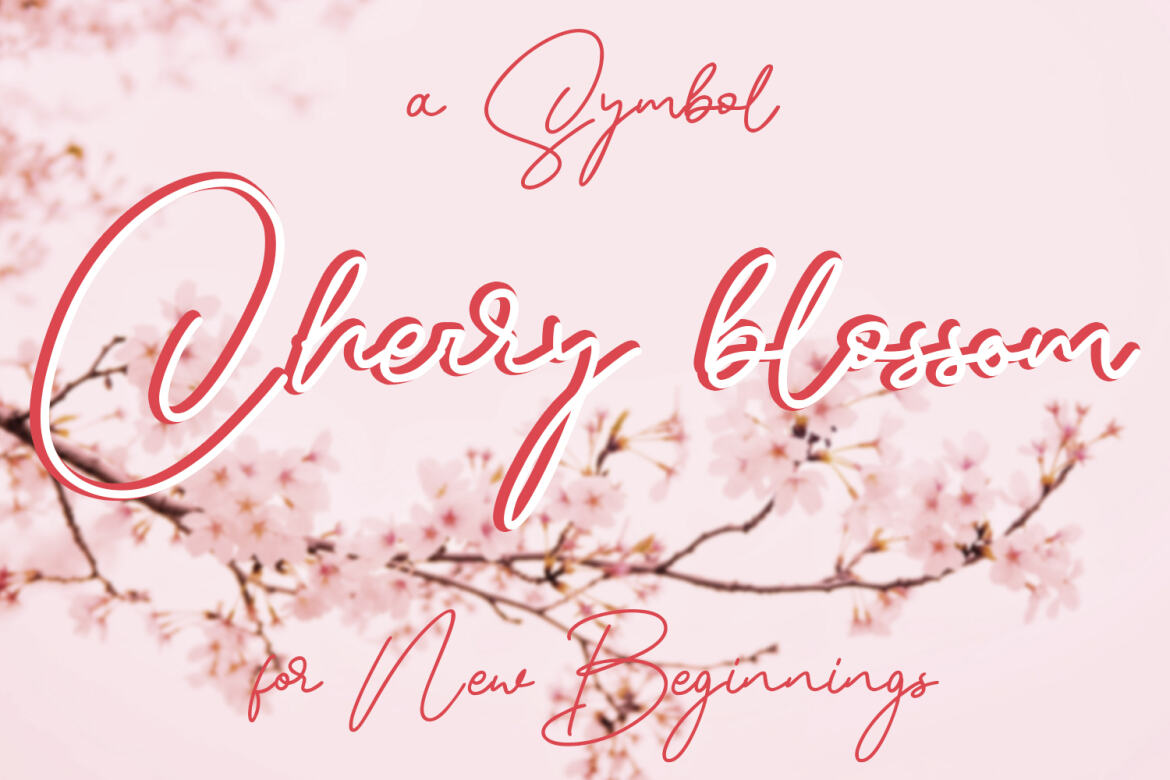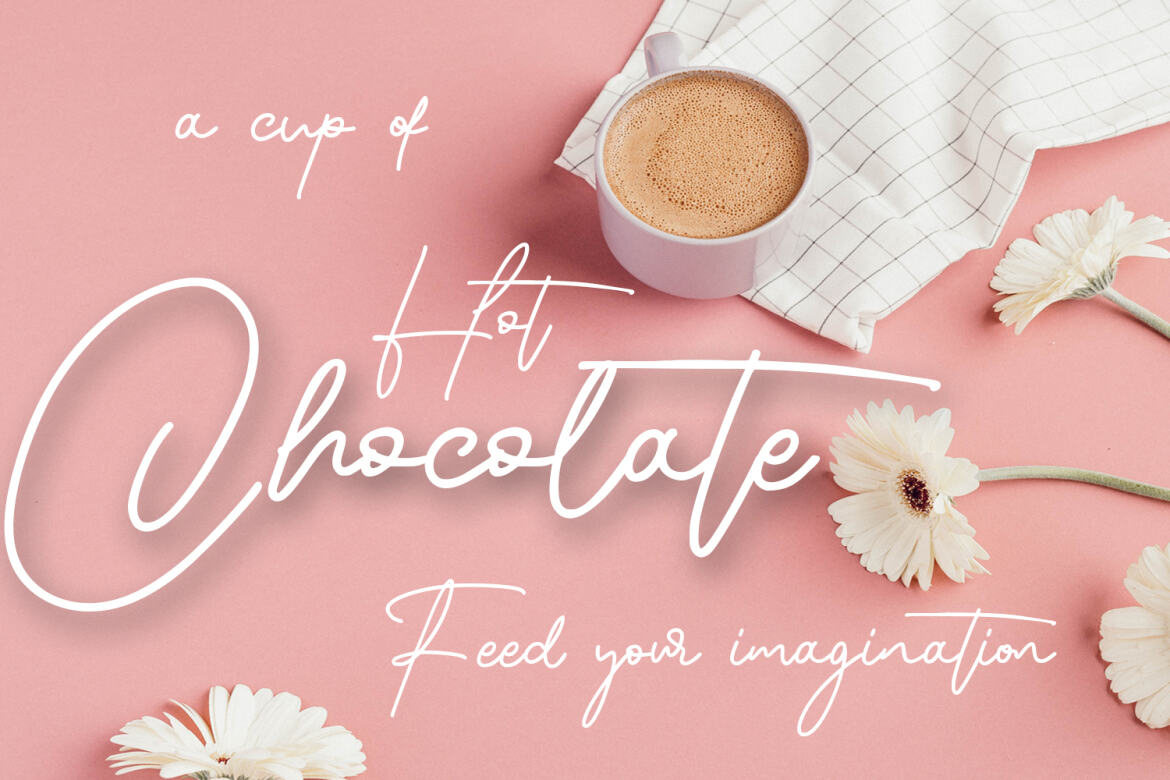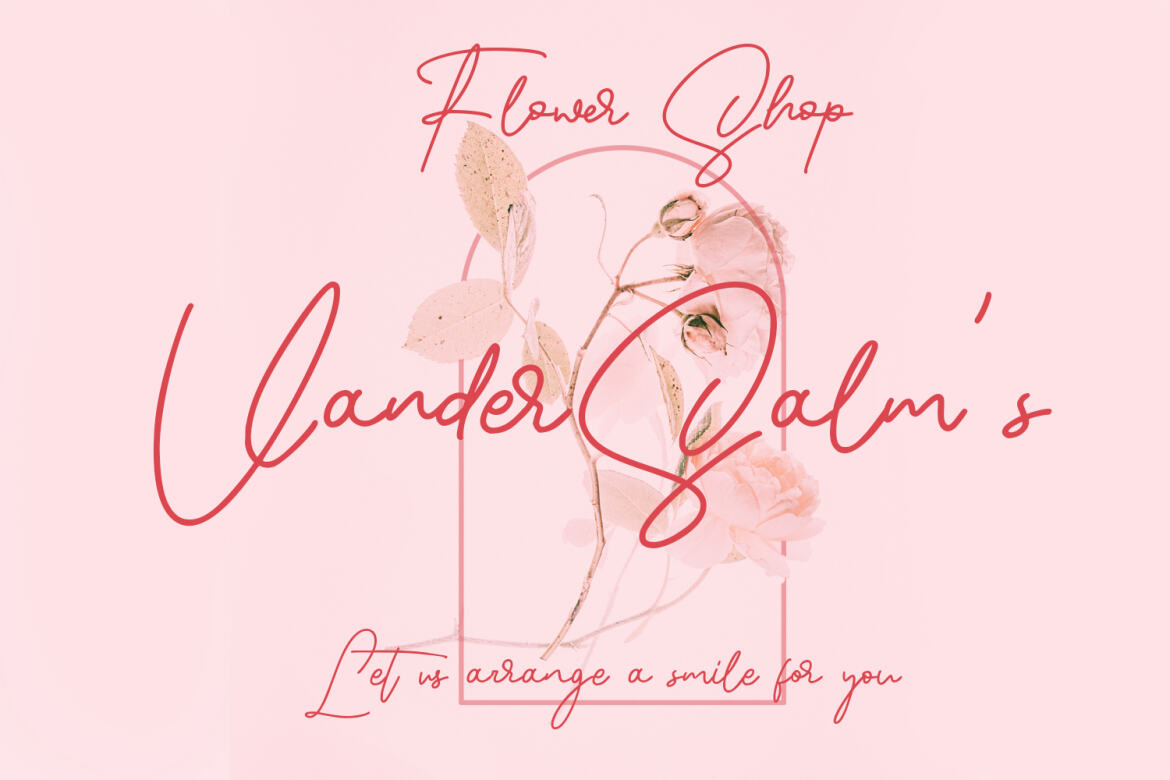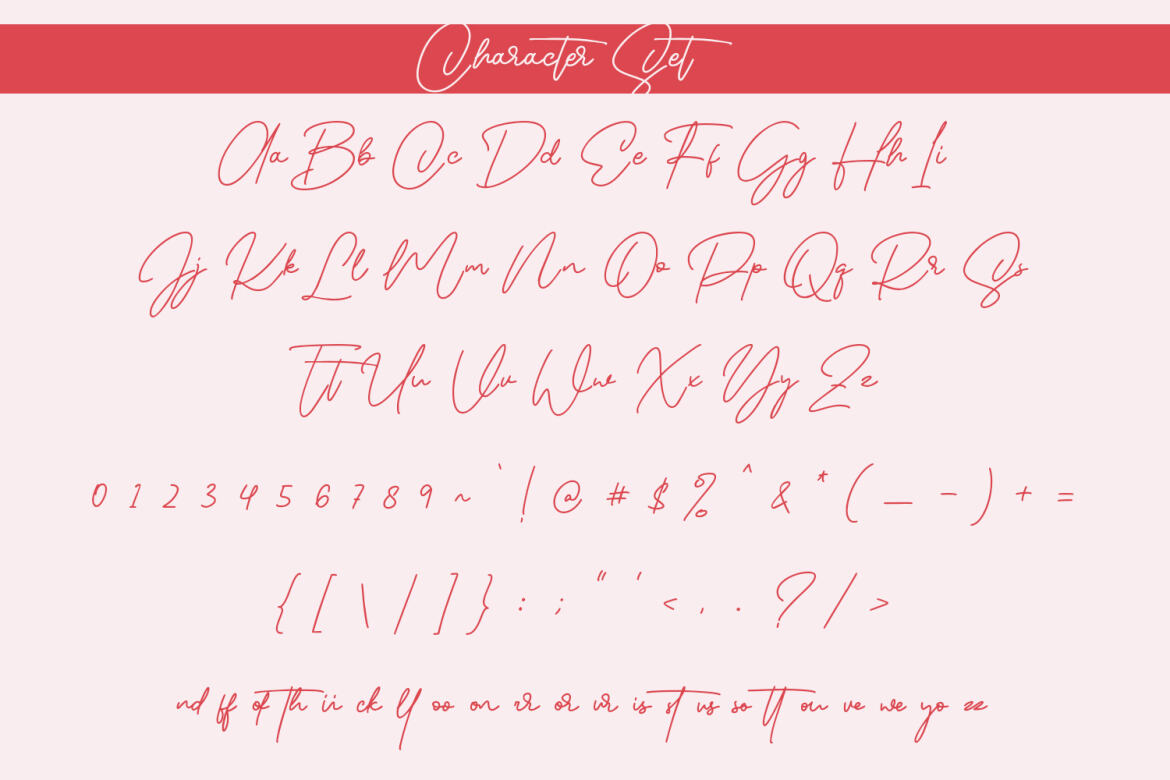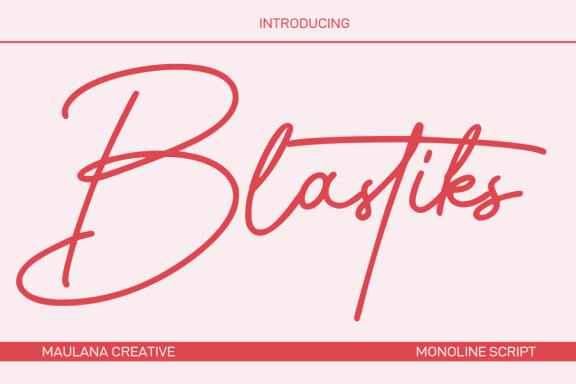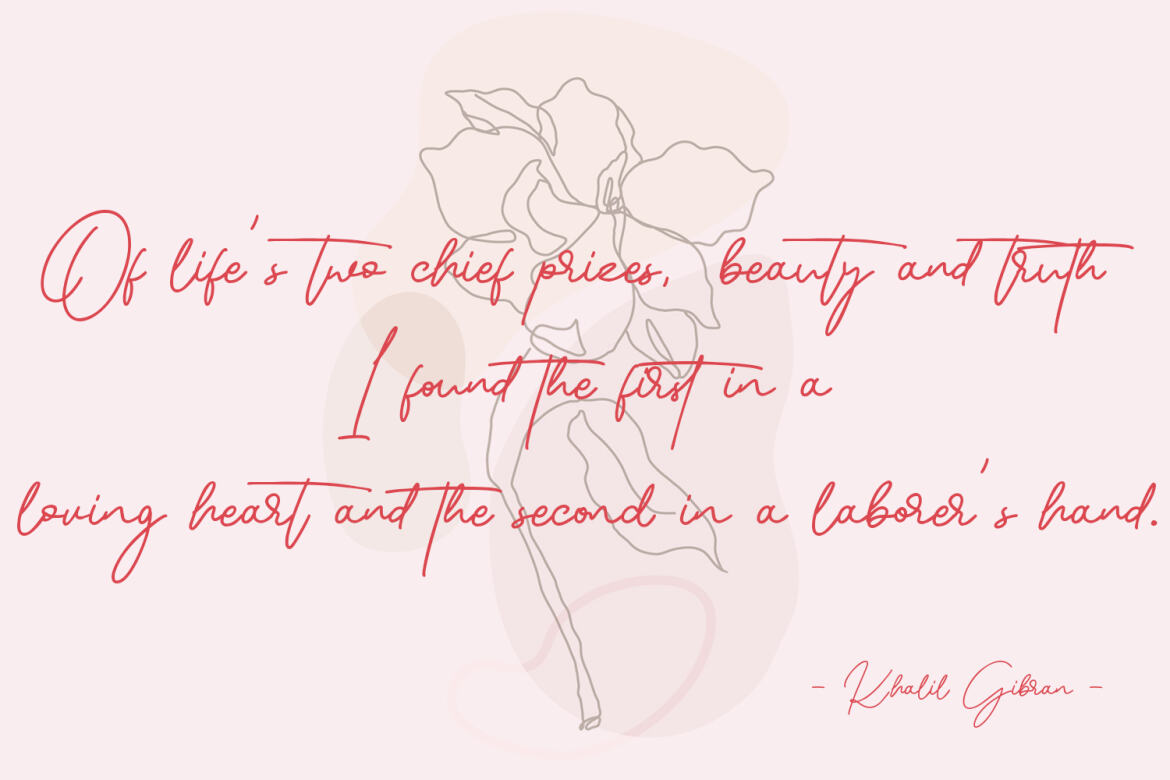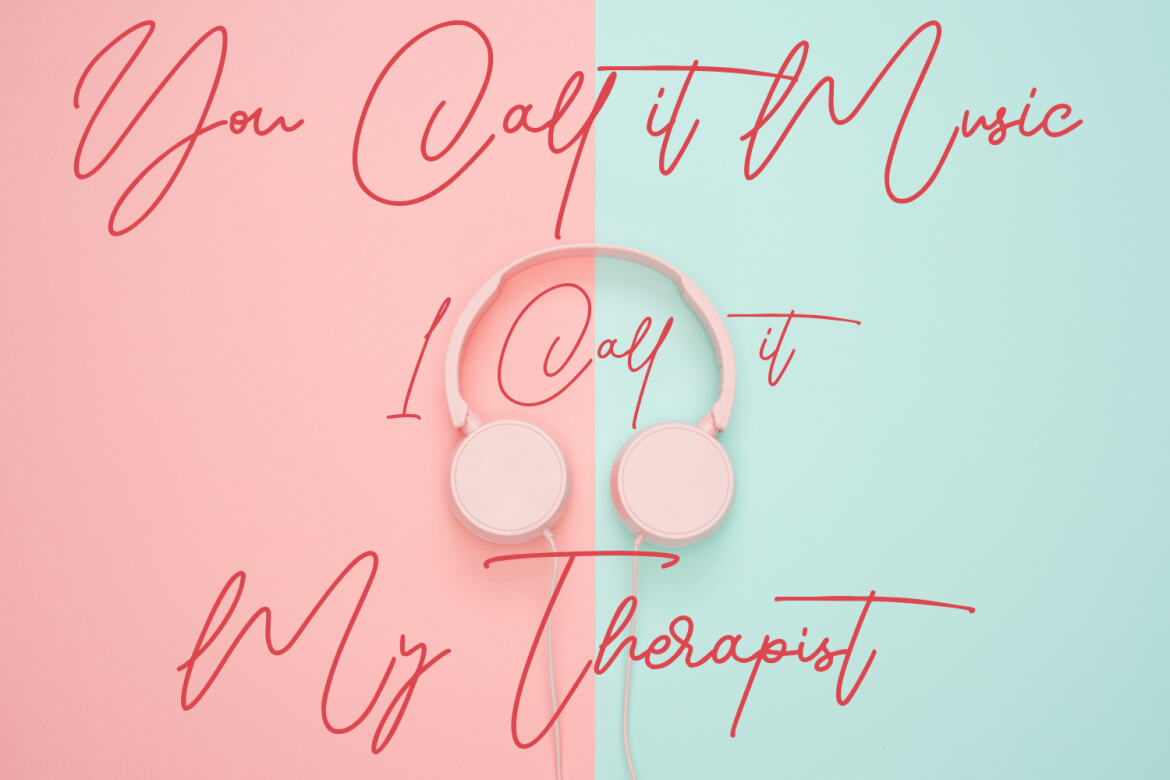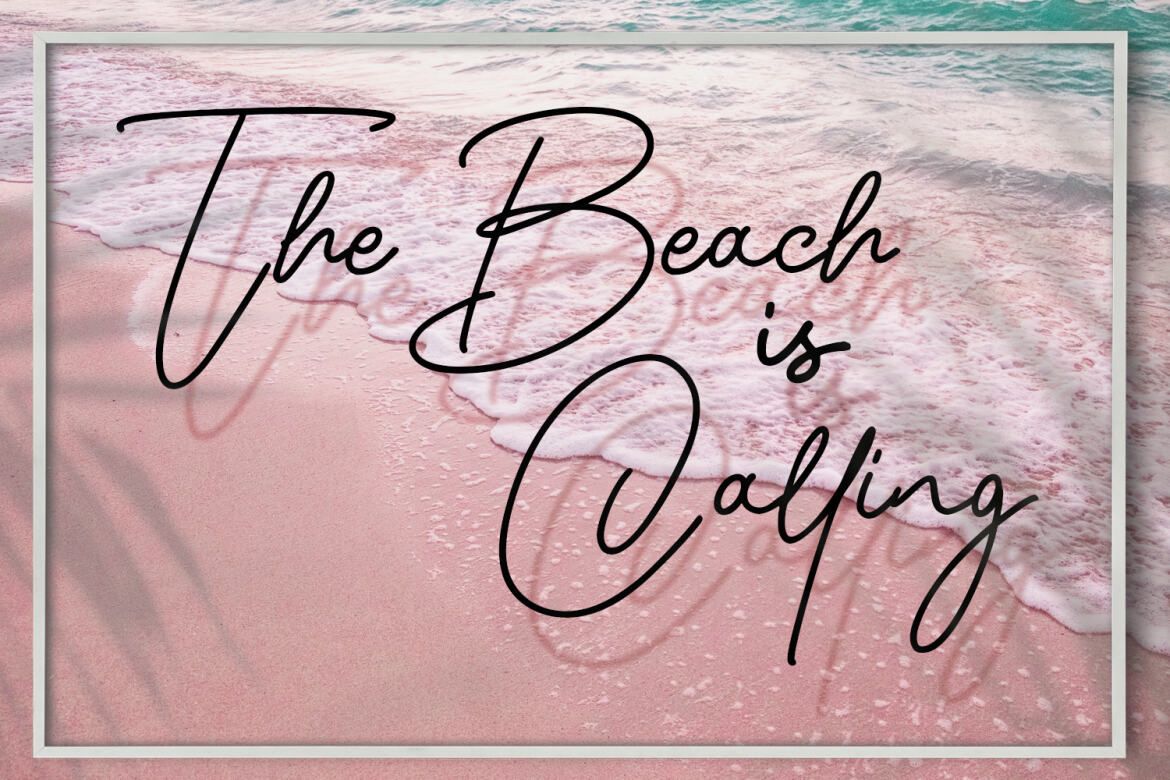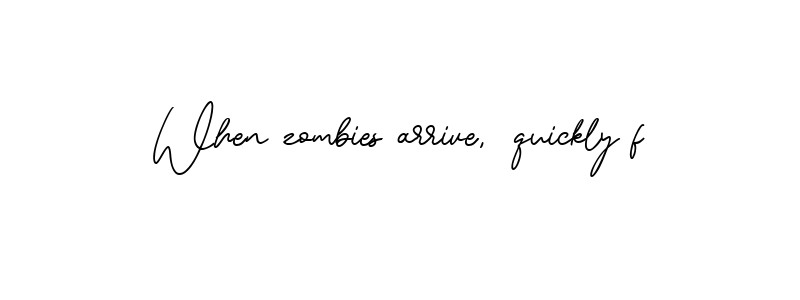
Blastiks Signature FREE Font
Blastiks
Blastiks is am expressive casual signature script font. With slanted mono-line stroke, fun character with some of ligatures. To give you an extra creative work. Blastiks font support multilingual more than 100+ language. This font is good for logo design, Social media, Movie Titles, Books Titles, a short text even a long text letter and good for your secondary text font with sans or serif. Make a stunning work with Blastiks font.